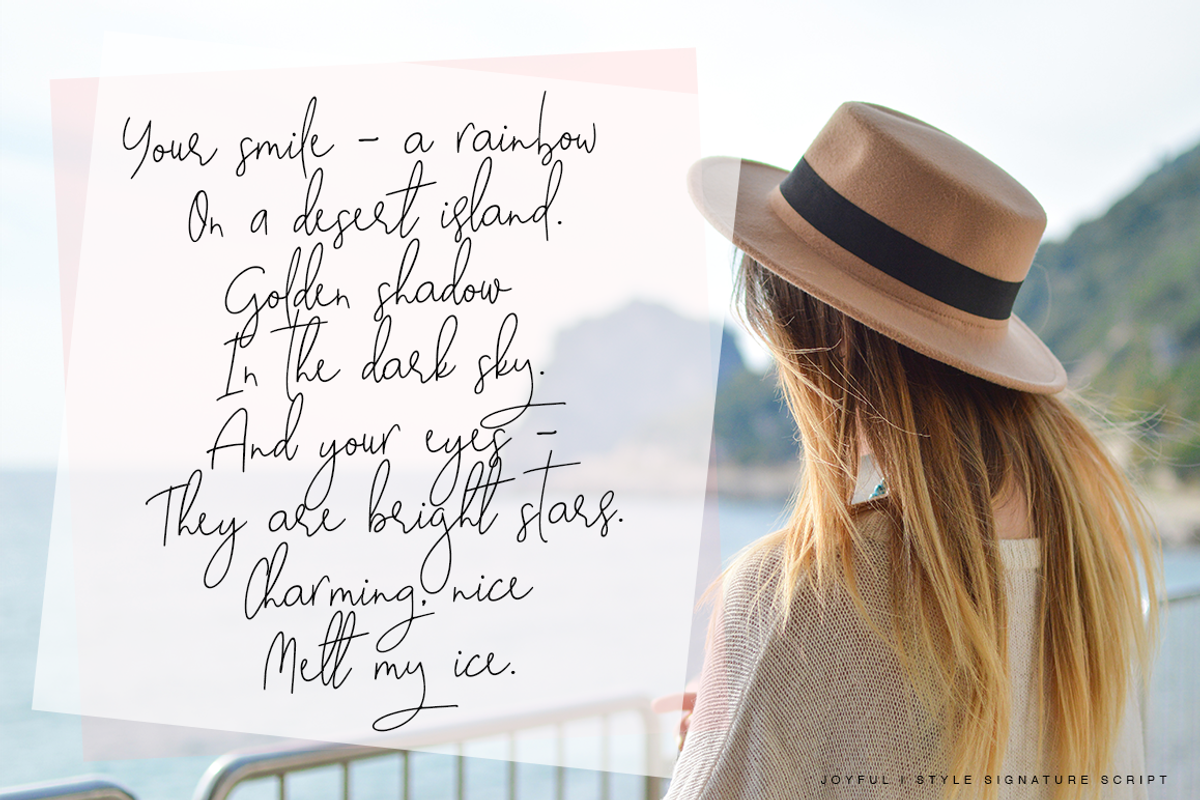
Joyful
Joyful script- a new fresh handmade calligraphy font.
This font is ideal for branding and decorate your any project, are perfect for wedding invitation or your blog. Also with their help, you can create a logo or beautiful frame for your home. Or just use for your small business, book covers, stationery, marketing, magazines and more. Special for you I prepared a lot alternates, swashs and ligatures.